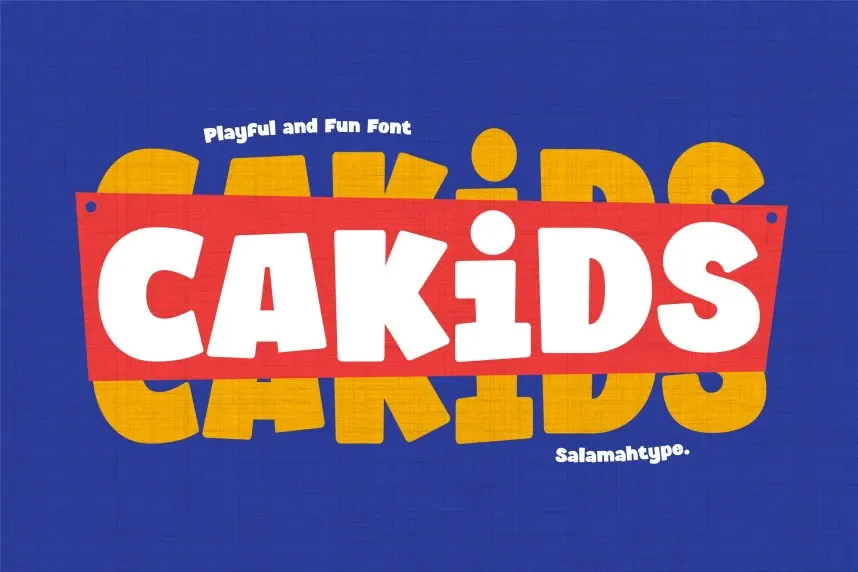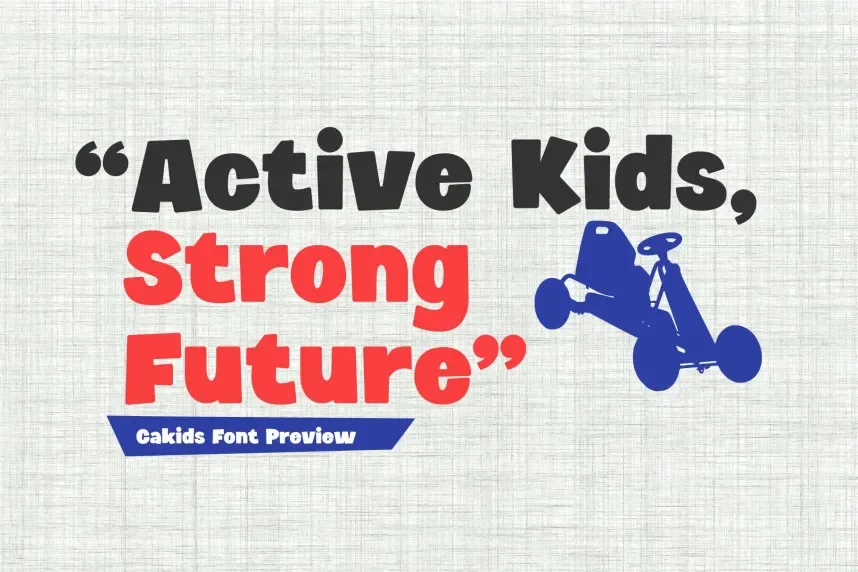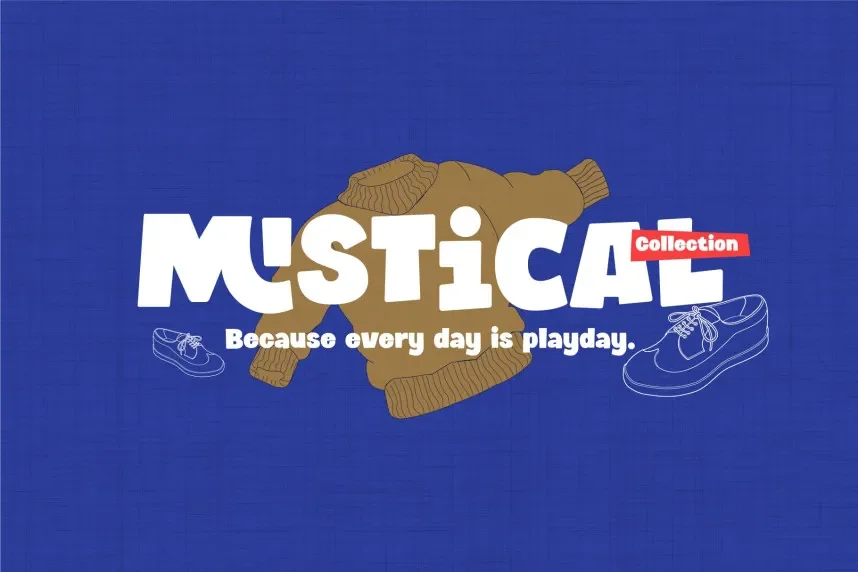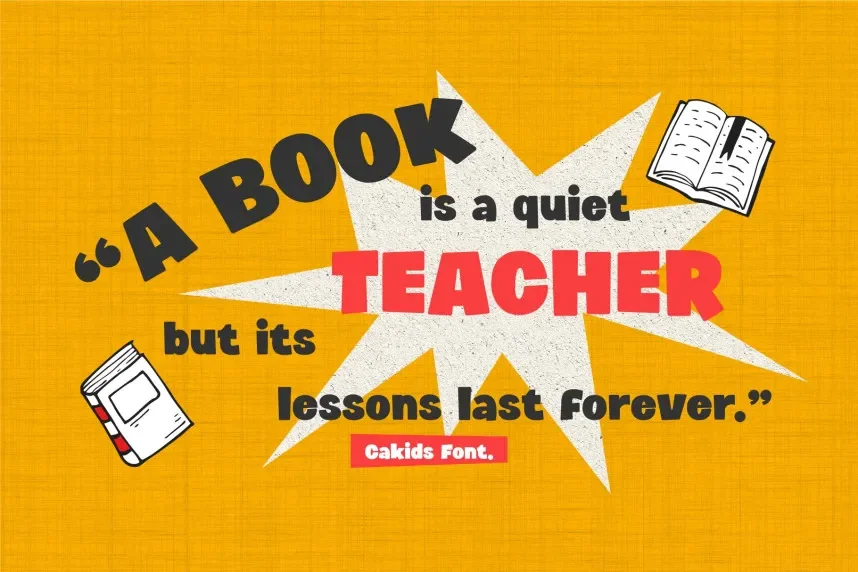
Cakids Font is a bold and playful typeface designed to enhance readability while adding a fun, energetic style to branding, social media graphics, and children’s products. Its distinctive letterforms address common design challenges like legibility in colorful or busy layouts.
This display font features thick strokes, rounded edges, and exaggerated curves. Its whimsical shapes make each character easily recognizable while maintaining visual balance. The font supports multiple weights and includes stylistic alternates, allowing flexibility for creative applications without sacrificing readability.